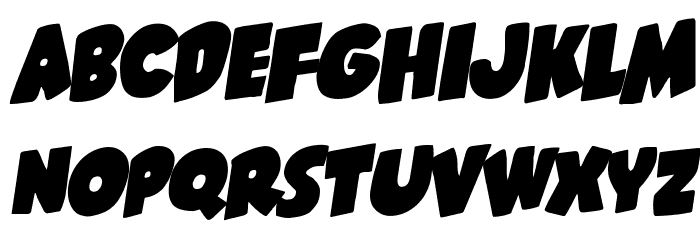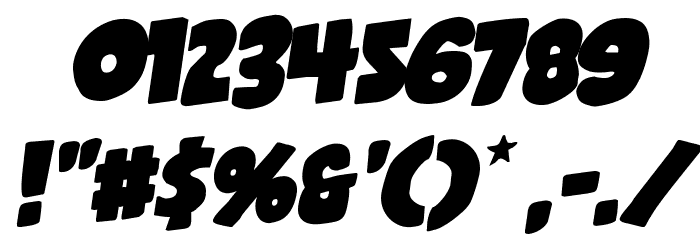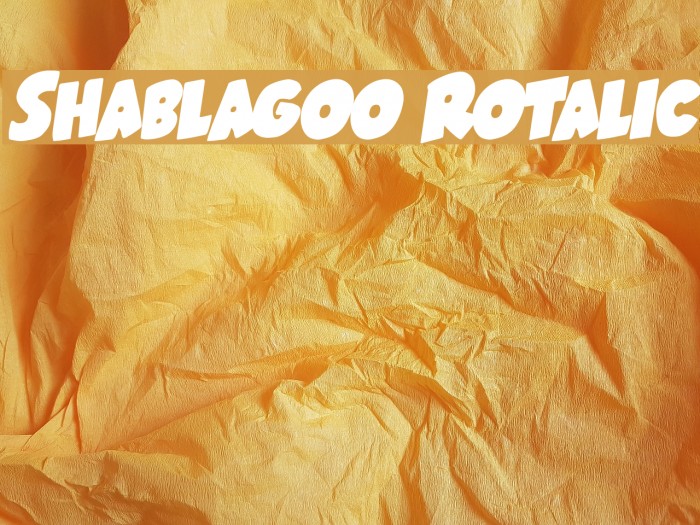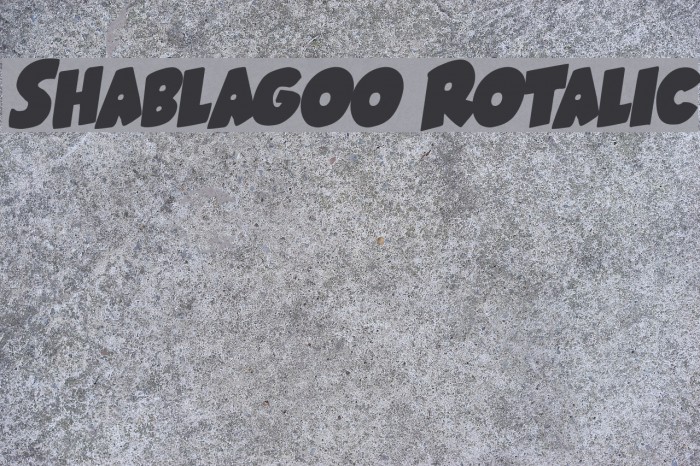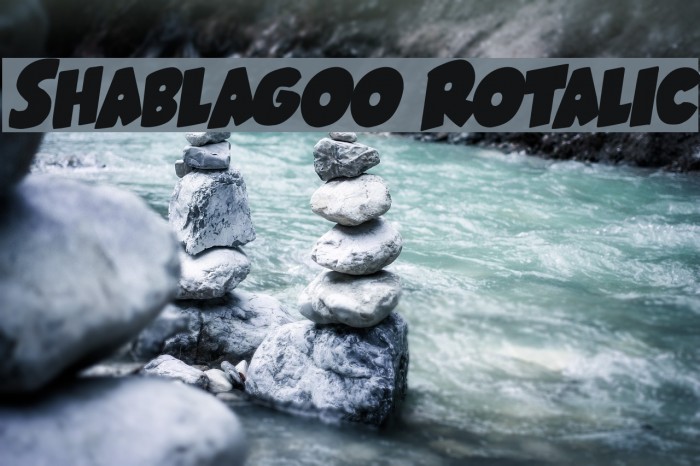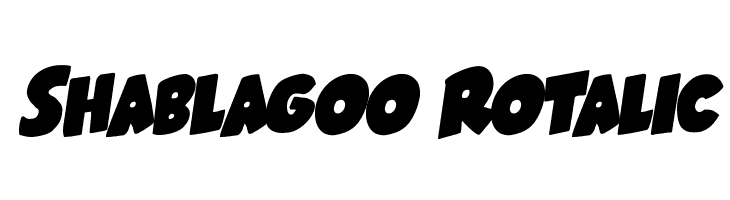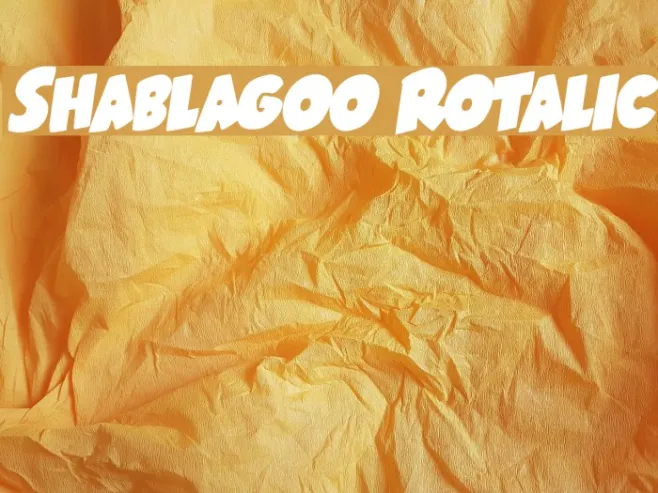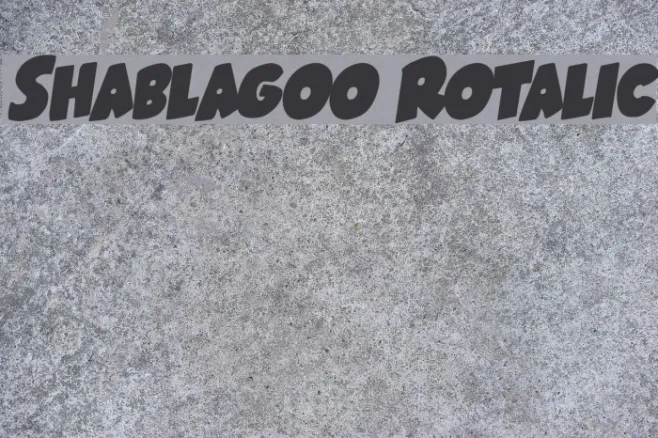
Shablagoo Rotalic Font
This bold and dynamic font features thick, rounded letters with a playful and energetic style. The characters are slightly slanted, giving a sense of movement and excitement. The uppercase and lowercase letters maintain a consistent weight, contributing to a cohesive appearance. The numbers and special characters are equally bold, ensuring readability and impact. This font's unique style makes it stand out, perfect for capturing attention.
A bold, playful font with rounded, slanted characters.
- Proposed Projects: Ideal for posters, logos, and branding materials that require a fun and energetic vibe.
- Overall Style: Playful, Energetic